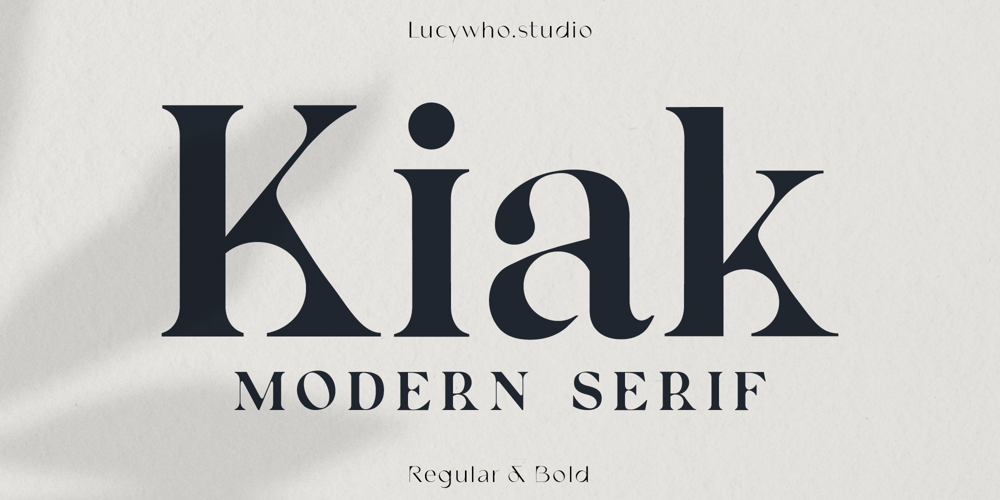
Kiak
Kiak font
Kiak Font Family was designed by Lucia Mercedes and published by Lucywho. Kiak contains 2 styles and family package options. Kiak – An unique playful serif fontKiak is playful and modern serif font. This typeface provides a timeless and unique look for any design. Use Kiak for branding, magazine design, logo design, headlines, posters, packaging, cards or your wedding invitation.Regular & Bold (.otf/.ttf/.woff/.woff2) Multilingual support Numerals & Punctuation ___Follow my shop in order to receive notifications for the latest updates including additional glyphs and more languages. Do not hesitate to message me if you want your language included or if you have any requests regarding features or glyphs. I am happy to assist you.